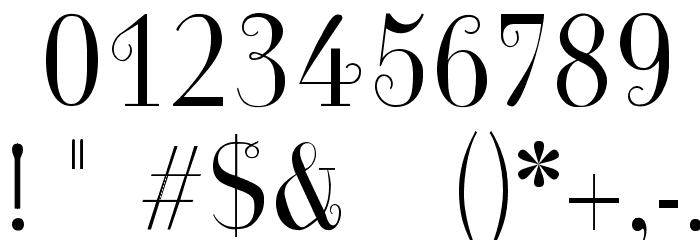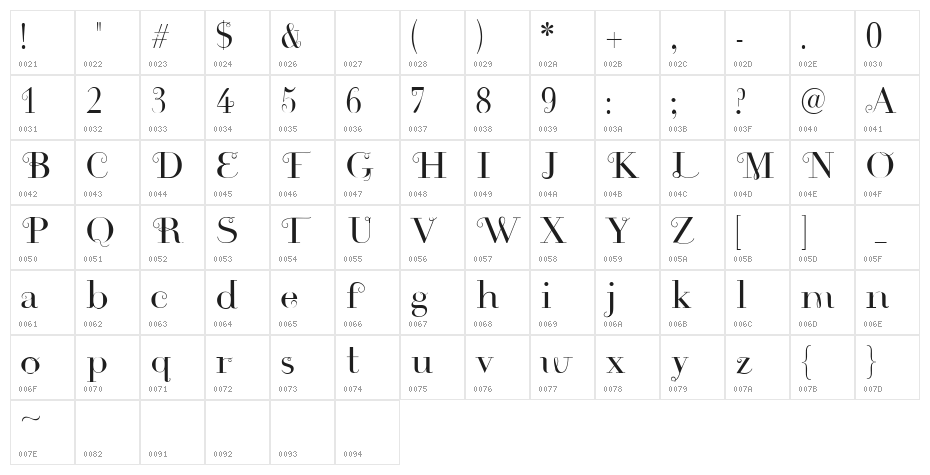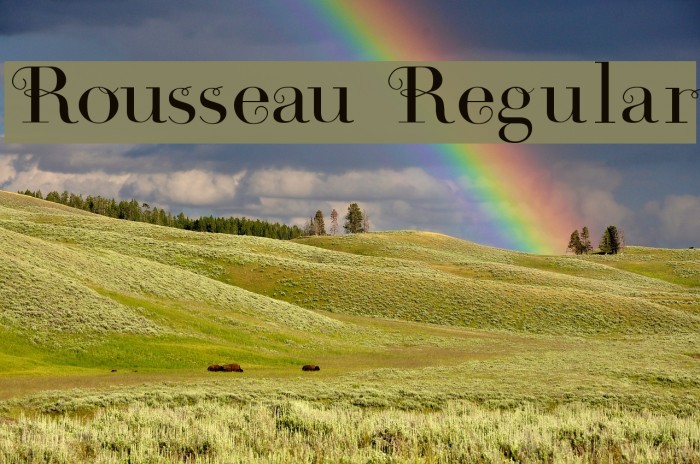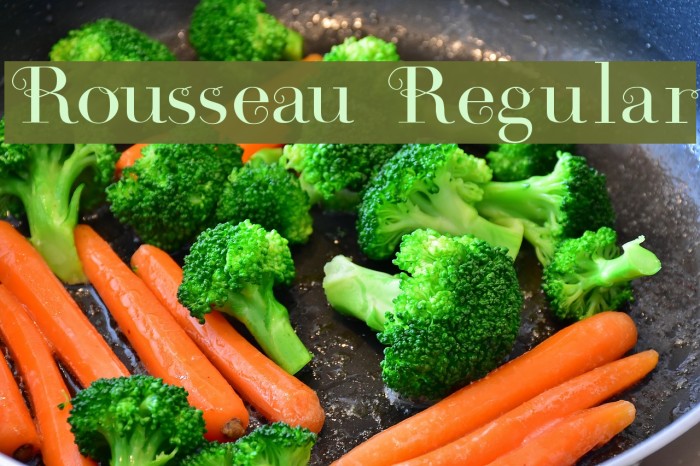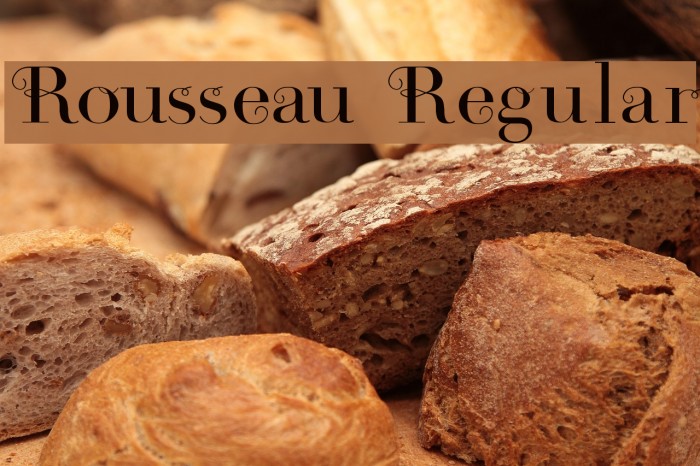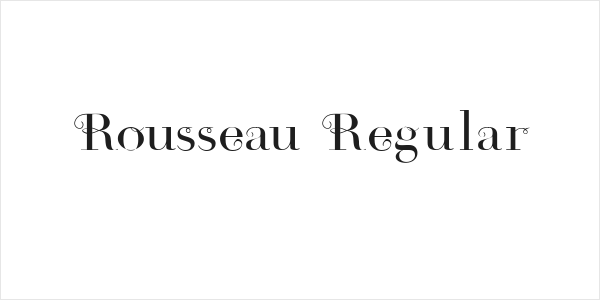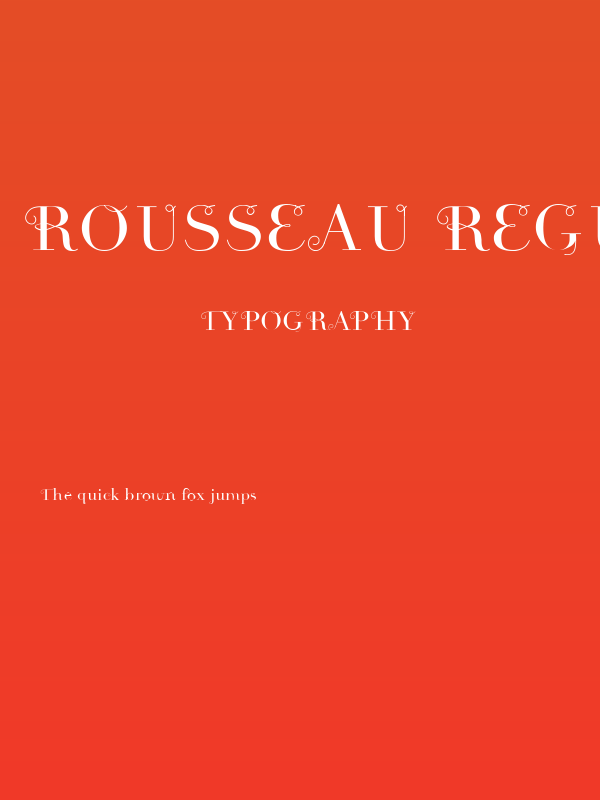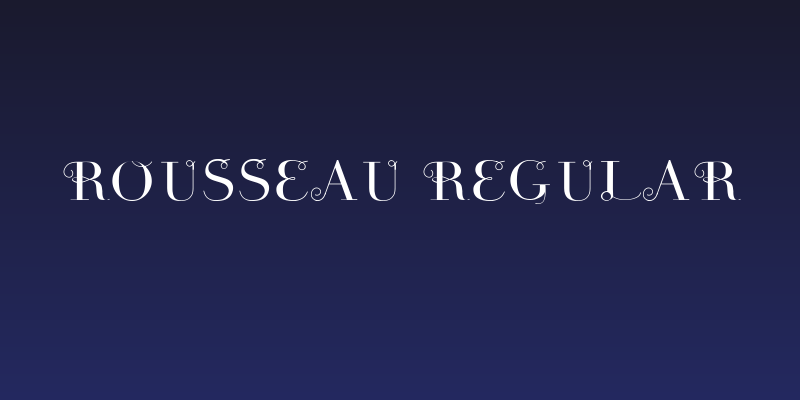
Rousseau Regular Font
Rousseau Regular Description
This font features a decorative and elegant style with intricate swirls and flourishes that add a touch of sophistication. The uppercase letters are adorned with delicate curves, giving them a unique and artistic flair. The lowercase letters maintain a consistent style, with smooth transitions and balanced proportions. The numerals are clear and legible, yet they retain the decorative essence of the font. Special characters are designed with the same attention to detail, making them visually appealing. Overall, this font exudes a sense of elegance and creativity, making it suitable for projects that require a touch of class and artistic expression.
| Proposed Projects | Ideal for wedding invitations, luxury branding, artistic posters, and elegant packaging designs. |